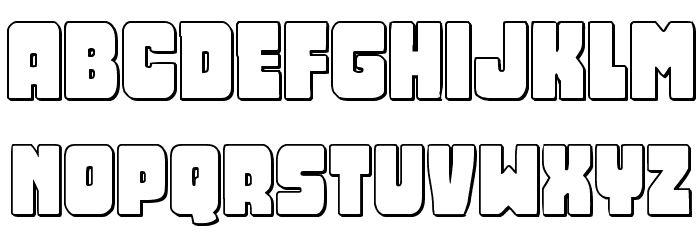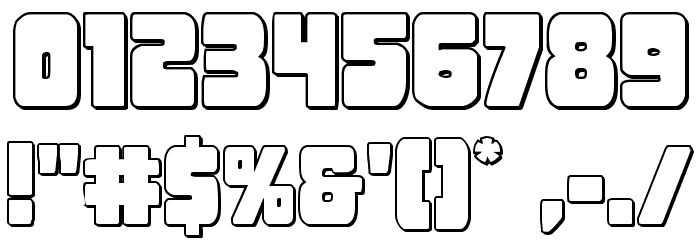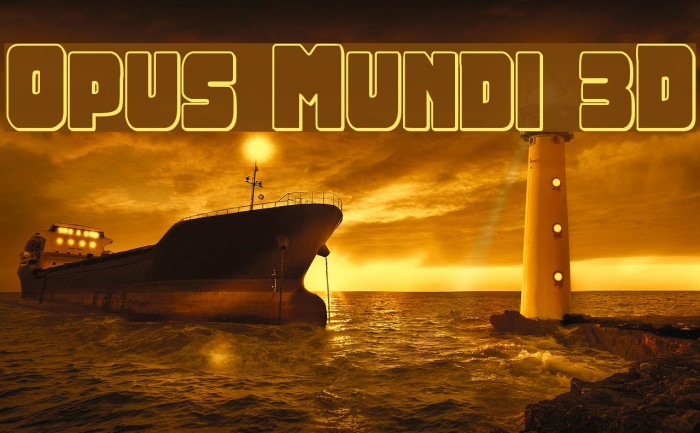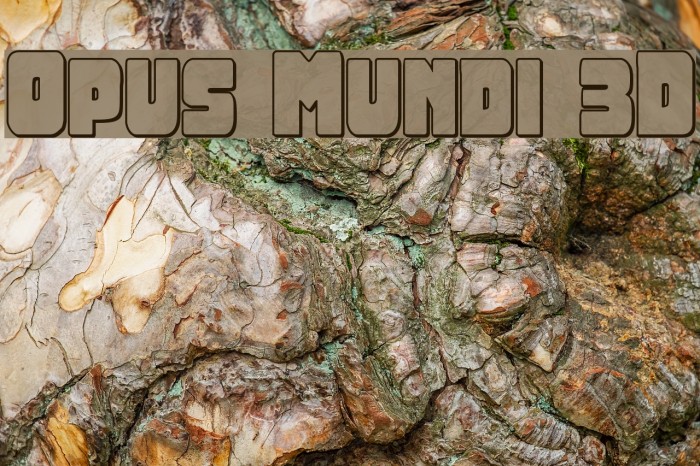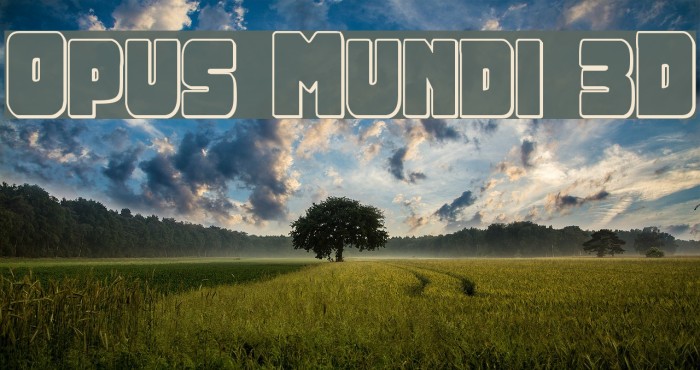
Opus Mundi 3D Font
This font features a bold, three-dimensional appearance with thick outlines that give each character a strong, impactful presence. The letters are uppercase and have a blocky, geometric style, which is consistent across both the alphabet and numerical characters. The design is uniform, with each character maintaining a similar width and height, creating a cohesive look. The font's 3D effect is achieved through a shadow-like outline that adds depth, making it suitable for eye-catching designs. The special characters are designed to match the boldness and style of the alphabet, ensuring a consistent visual theme.
A bold, 3D geometric font with thick outlines and a uniform blocky style.
- Proposed Projects: Ideal for posters, headlines, logos, and any design requiring a strong visual impact.